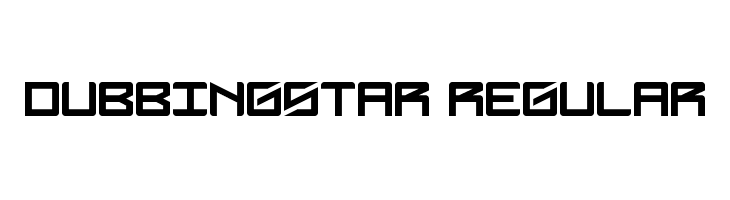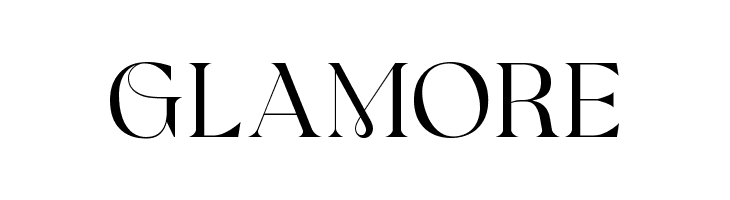
Decorative script font with elongated lines.
A bold, geometric font with a modern, industrial stencil design.
A playful, rounded font with a hand-drawn, whimsical style.
A bold, decorative font with a vintage, three-dimensional style.
A decorative font inspired by vines and branches, featuring organic and intricate designs.
A bold, brush-style font with a hand-drawn, artistic look.
A pixelated, italic font with a digital, tech-inspired design.
A bold, geometric font with angular shapes and a modern aesthetic.
A bold, Gothic-style font with dramatic, ornate characters.
设计师偏爱 Outfill, WCWunderbachBta-DemiBold, Magic Beans, BRONZEAGE PERSONAL USE Bold and FTFHutanAkarasiana,因为其造型干净、适用范围广—— 从品牌识别到落地页、海报都能胜任。